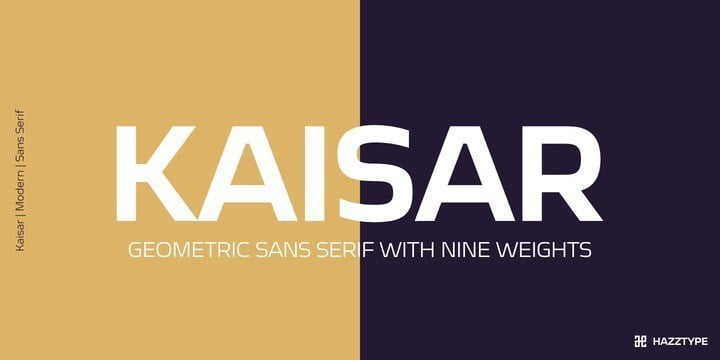
Kaisar Sans Serif Font
Introducing Kaisar Font, a strong, modern sans serif font family. It’s sturdy uncompromising style is felt through the controlled letterforms and modern touches. Each font in the family can stand on its own, dynamic and authoritative in their own right.